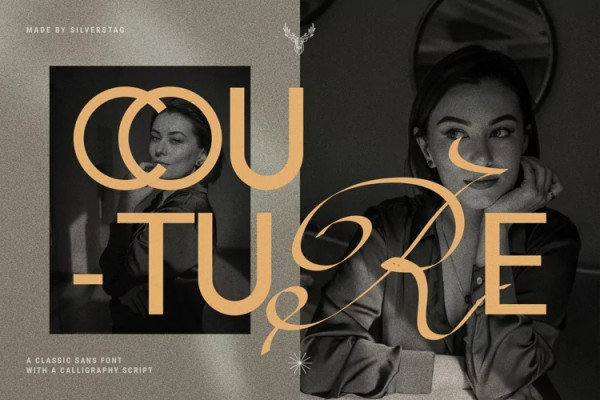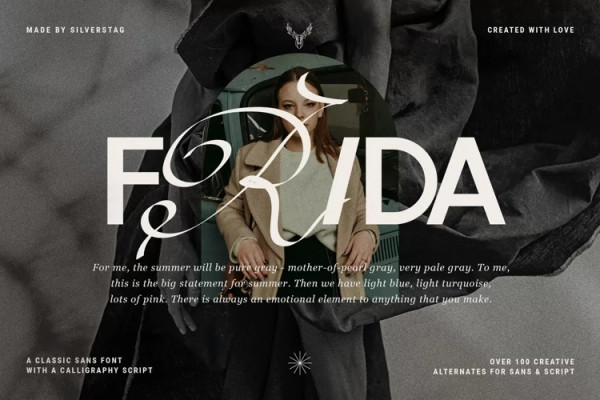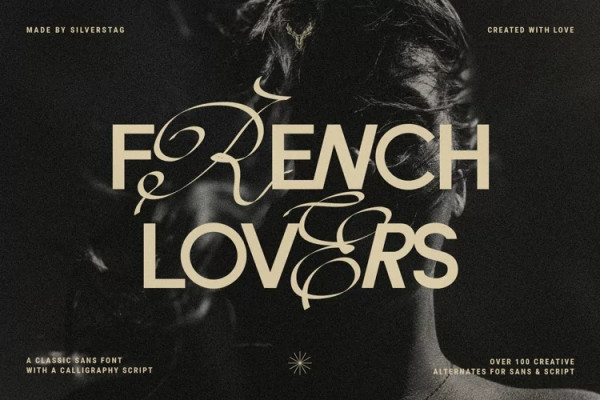
French Lovers Font
French Lovers Font, a brand new sans & script font duo French Lovers. And even though it’s a font duo, you will receive 3 fonts, but with all the alternate options described below you will basically have 18 different font versions.
I say it’s a font duo because it contains 2 different types of letters, a classic serif and a creative calligraphy script. However, I have included regular, bold, light, regular italic, bold italic, light italic, regular outline, bold outline, light outline, regular outline italic, bold outline italic & light outline italic sans, as well as regular, bold, light calligraphy script and regular, bold and light monoline script, so you will actually get 18 styles with this font family. All sans letters are available as uppercase letters and uppercase alternates, and script is available as lowercase letters & lowercase alternates.
It also includes full language support, punctuation, numerals and detailed instructions how to use alternate letters most of the apps on your computer, as well as in Canva.